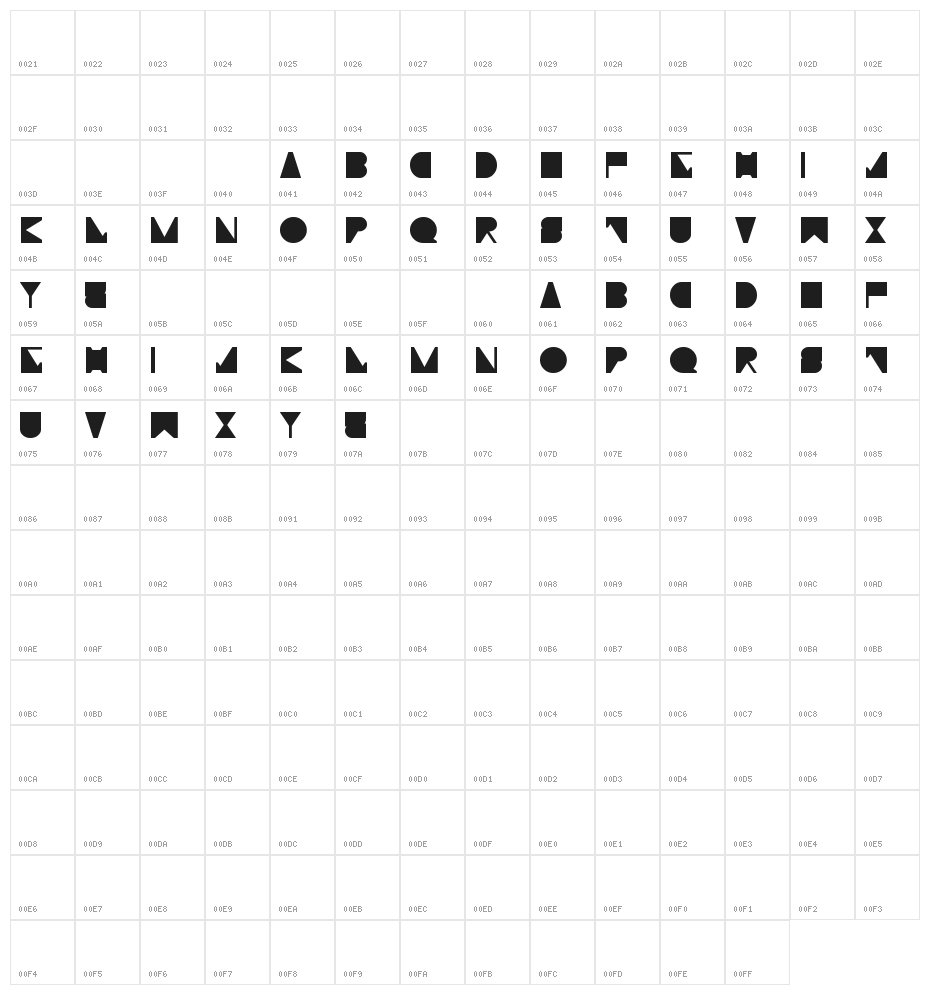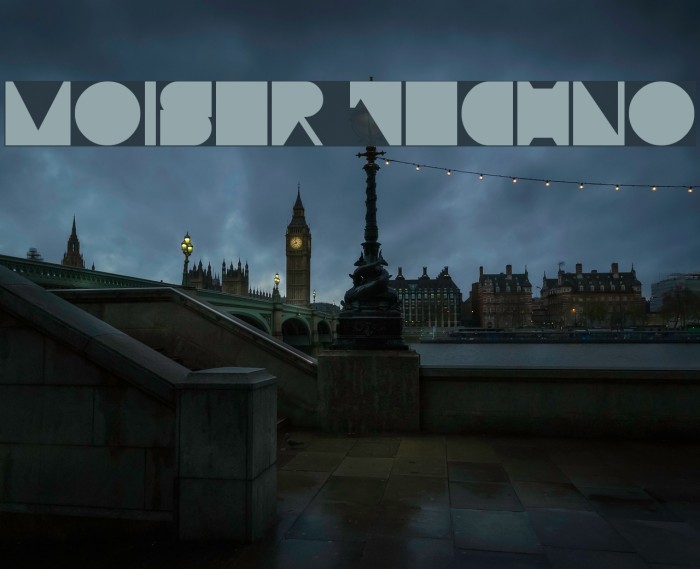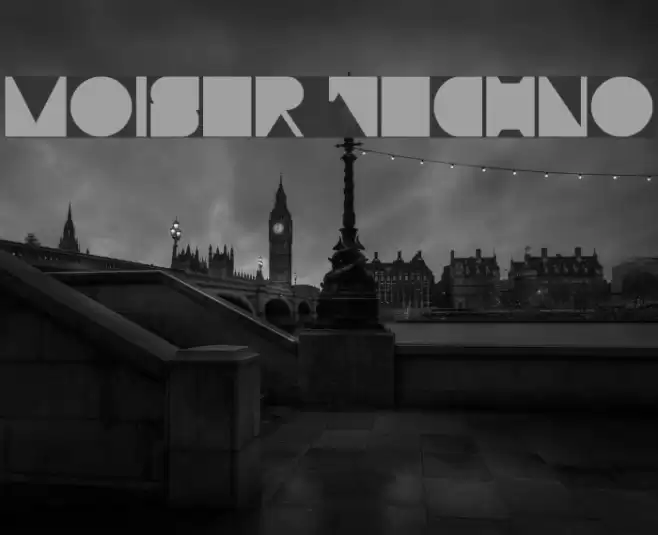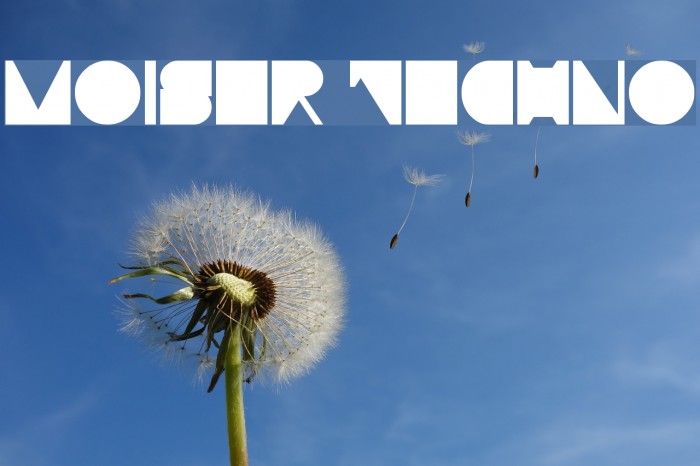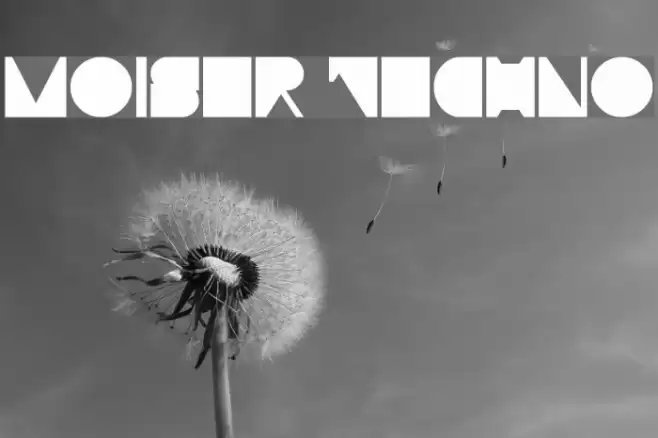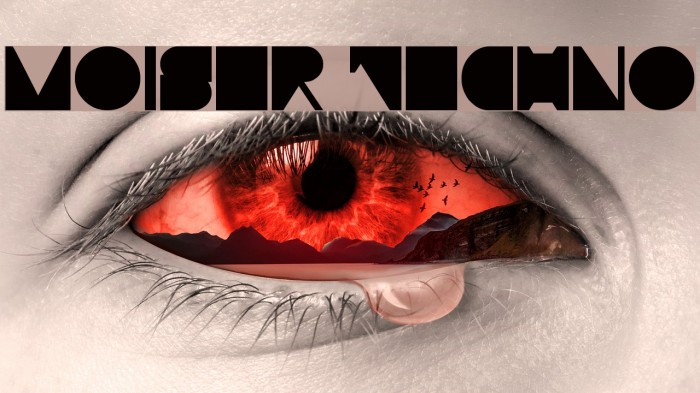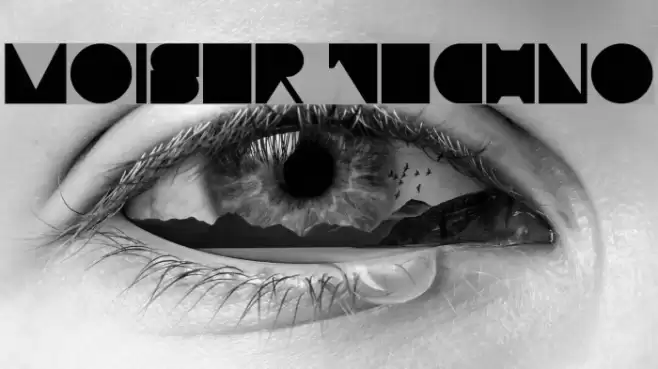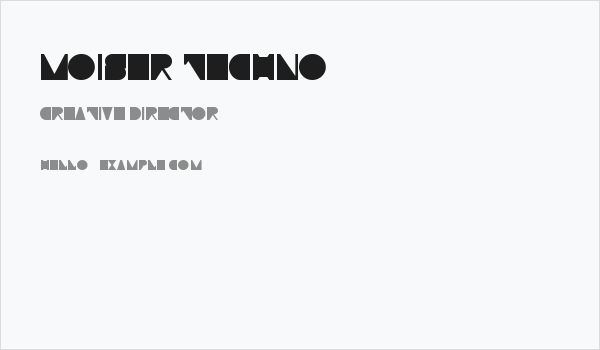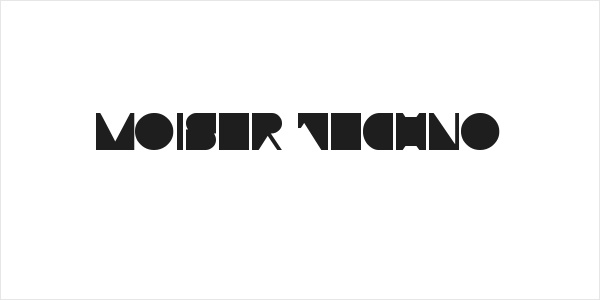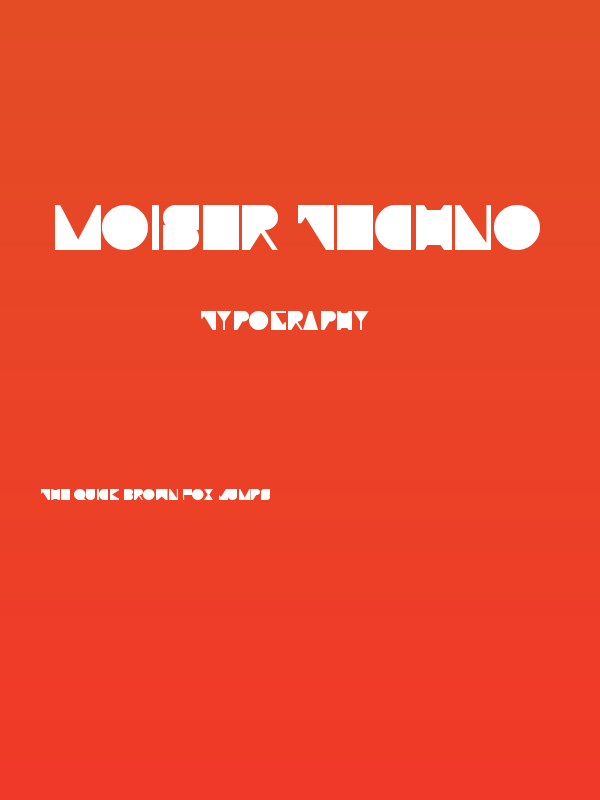
Moiser techno Font
Moiser techno Description
This font features a bold, geometric design with a futuristic and techno-inspired aesthetic. The characters are constructed with sharp angles and solid shapes, creating a striking and modern appearance. The uppercase and lowercase letters maintain a consistent style, with a focus on symmetry and balance. The numbers and special characters follow the same design principles, ensuring a cohesive look across all elements. This font is ideal for projects that require a strong visual impact and a contemporary feel.